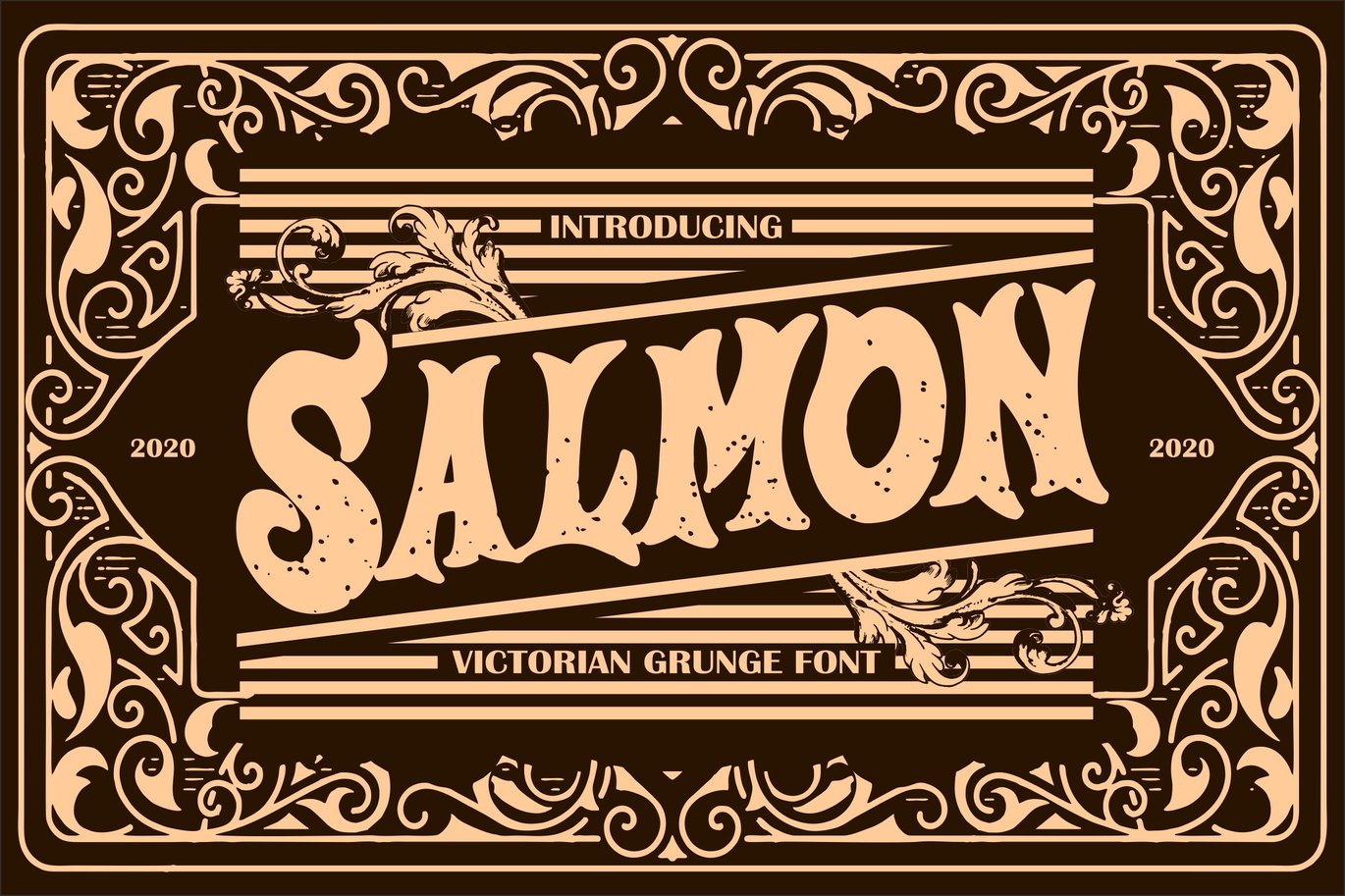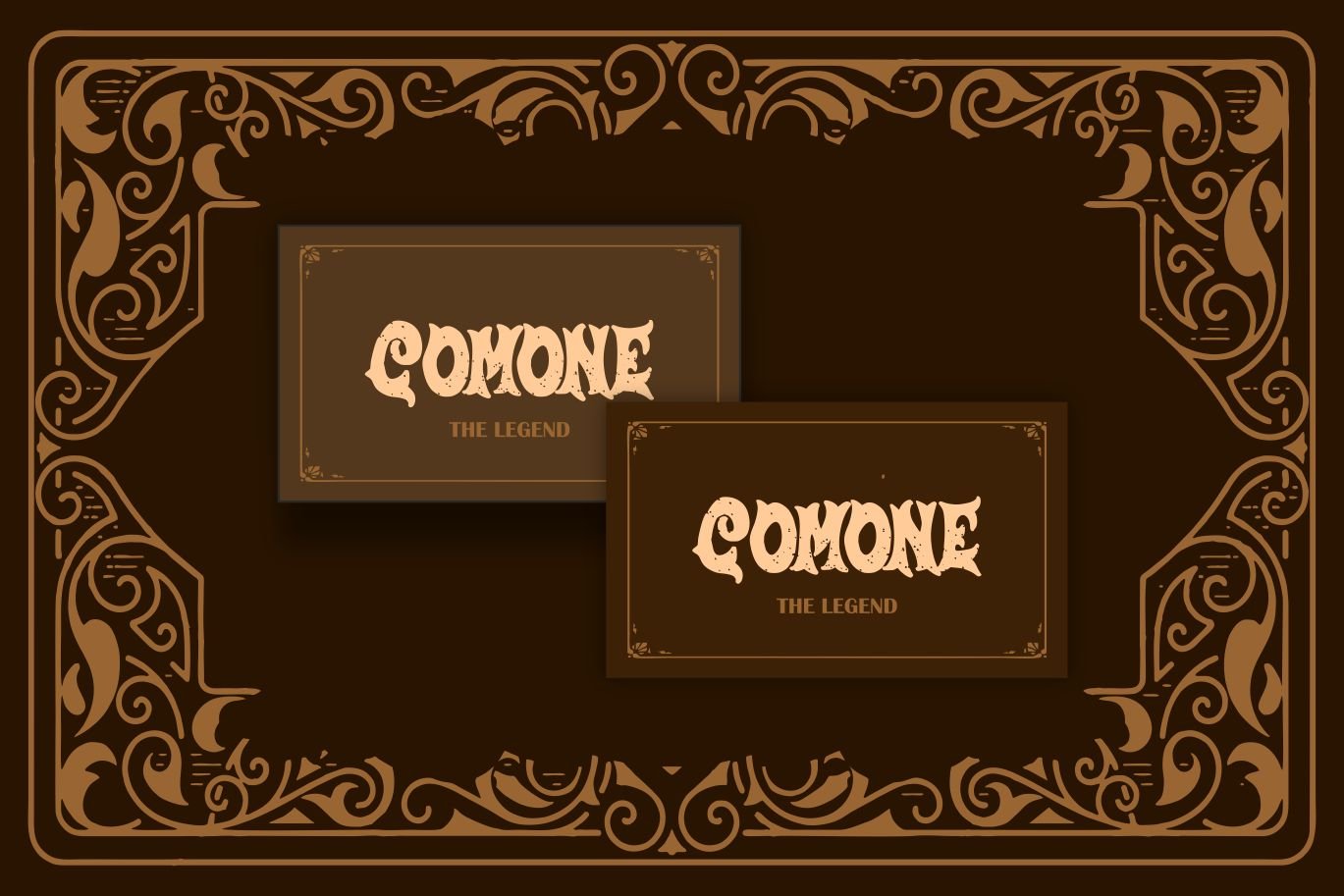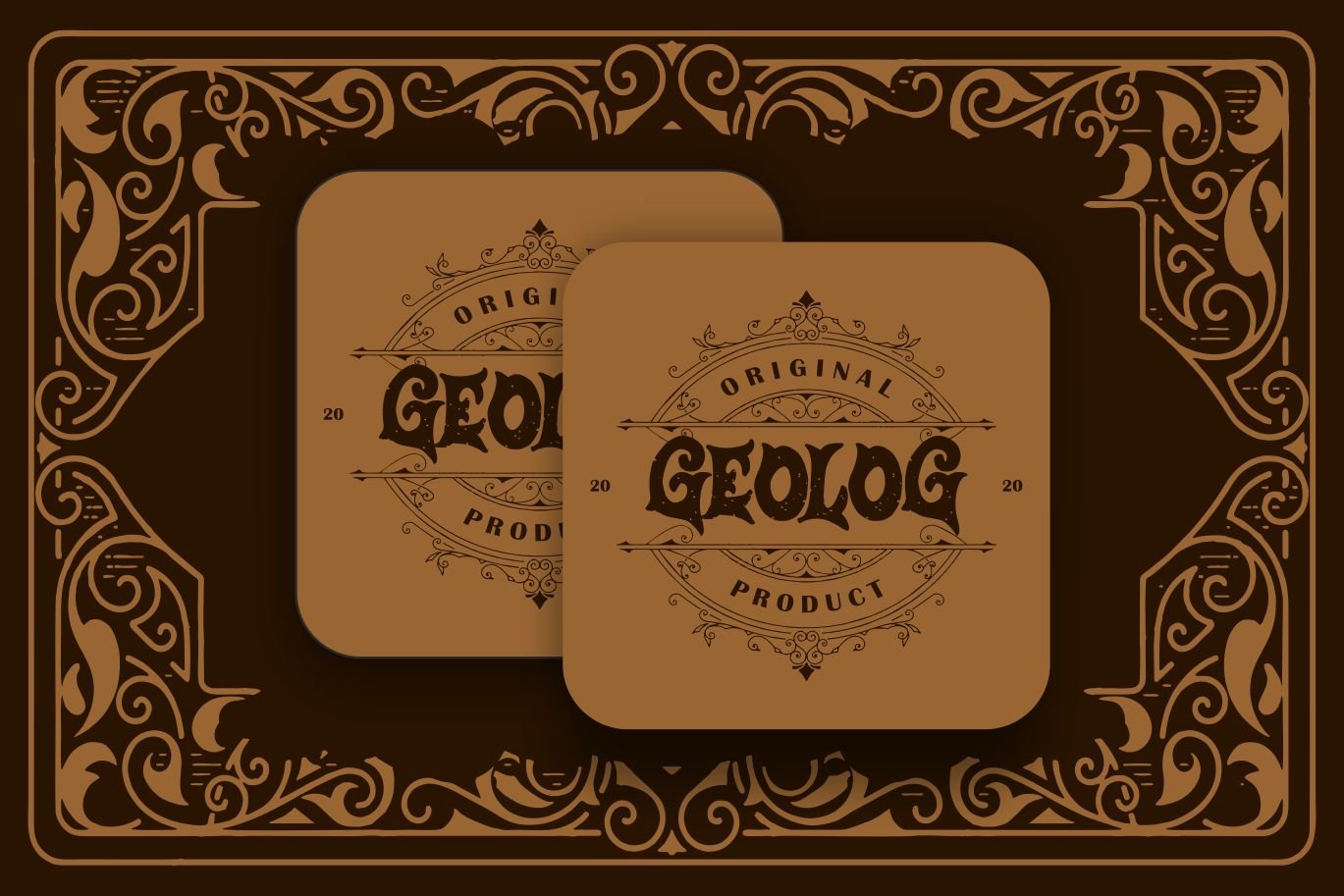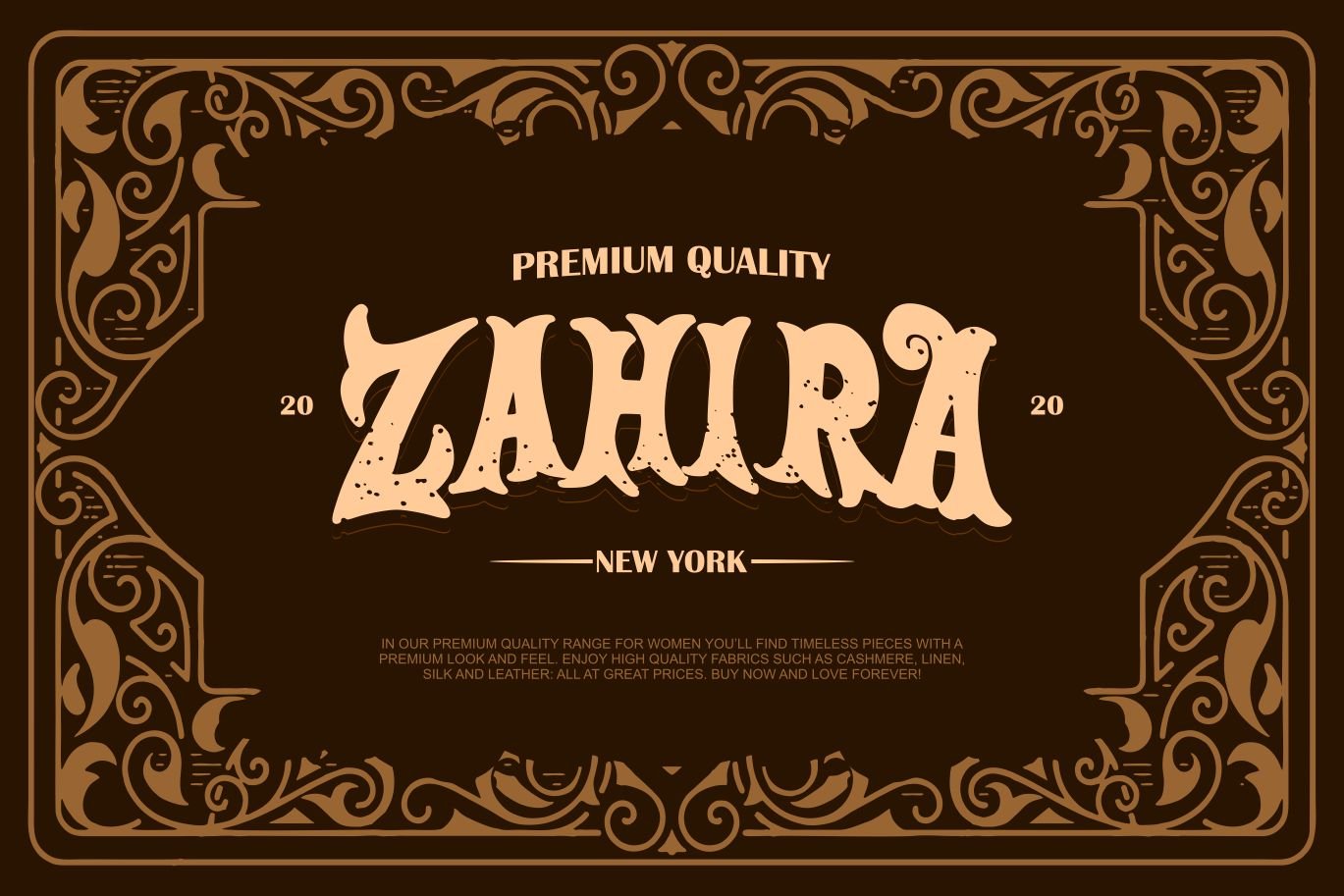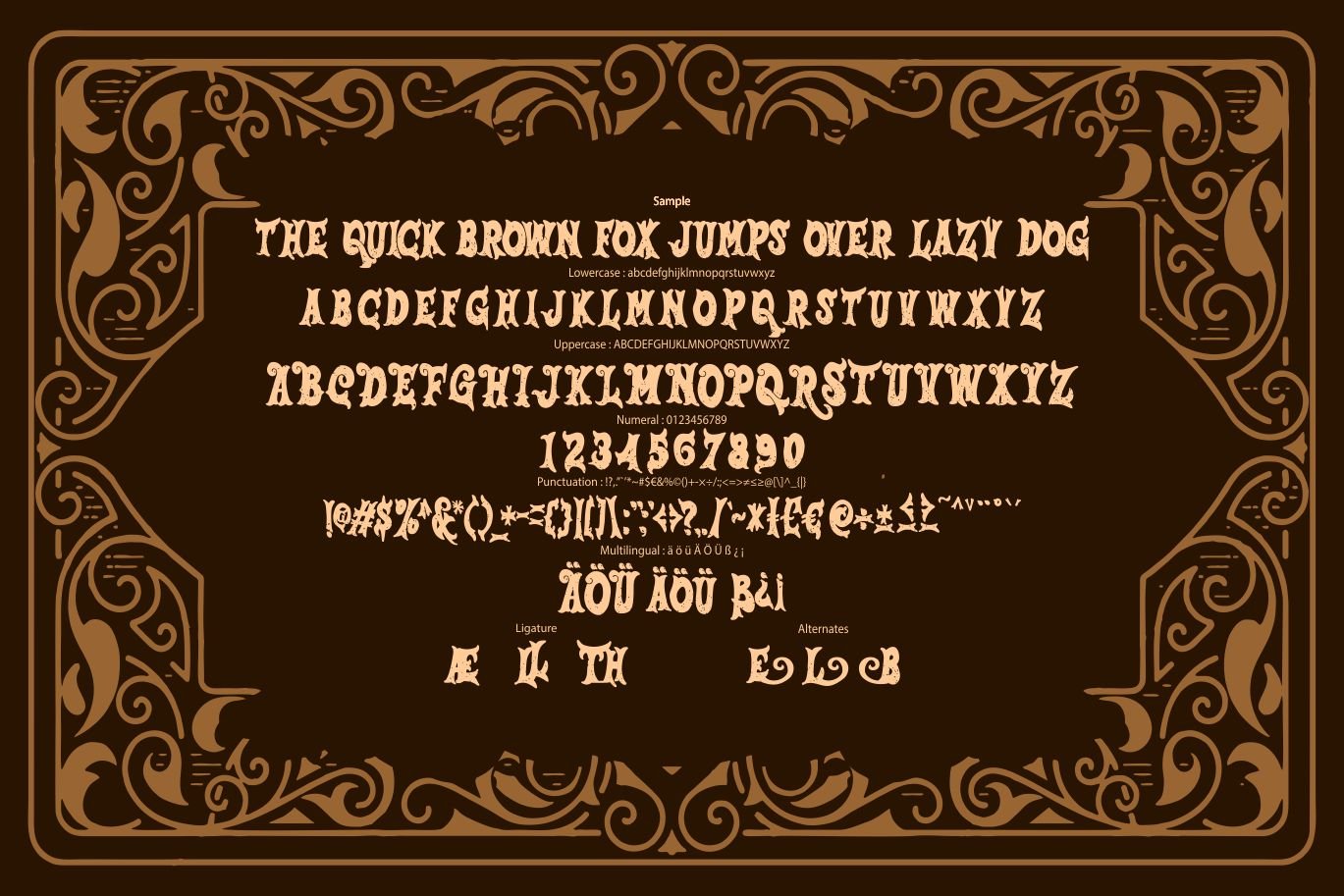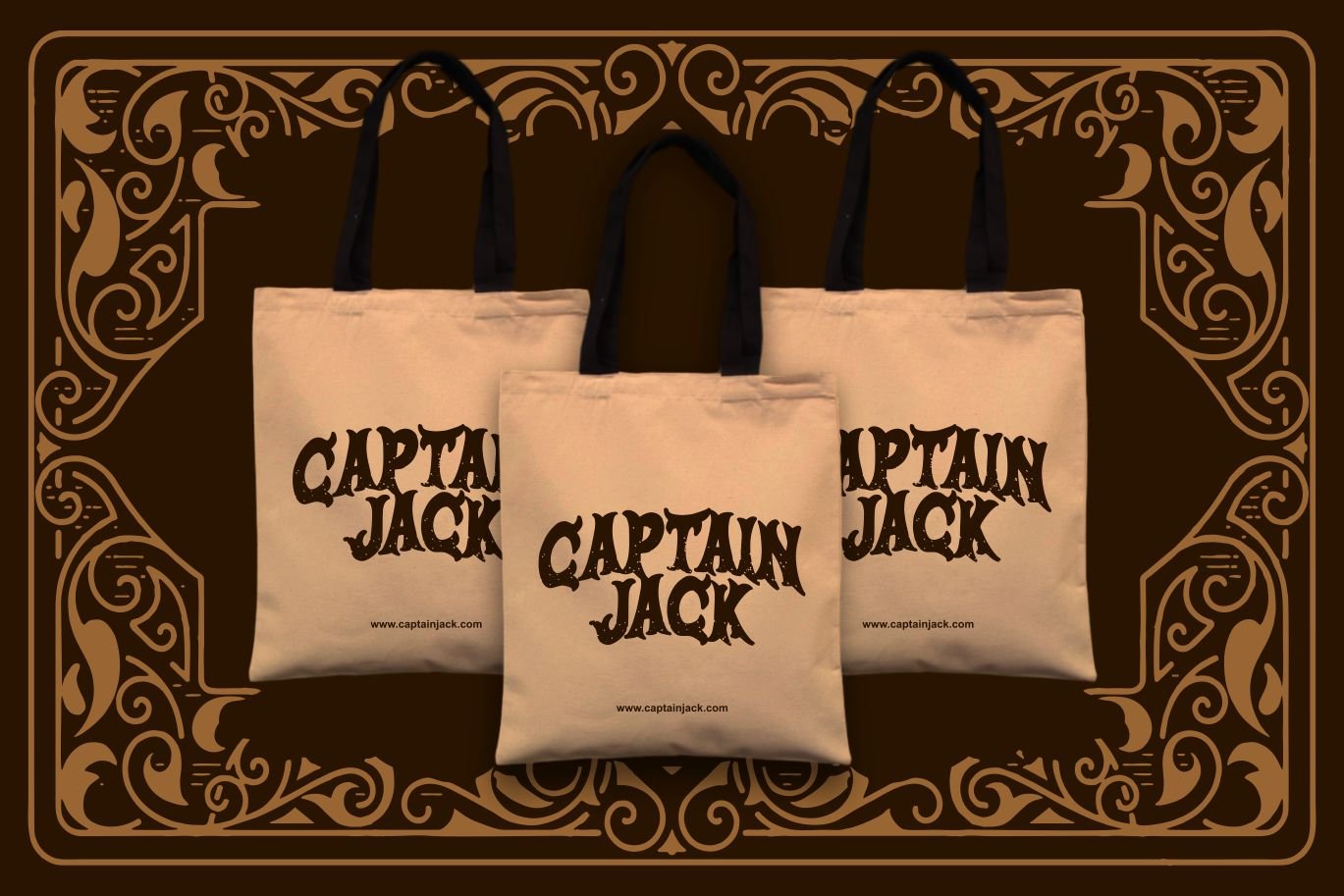
Salmon | Victorian Grunge Font
Salmon | Victorian Grunge Font with a calligraphy style, So beautiful on invitation like greeting cards, branding materials, business cards, quotes, posters, and more!